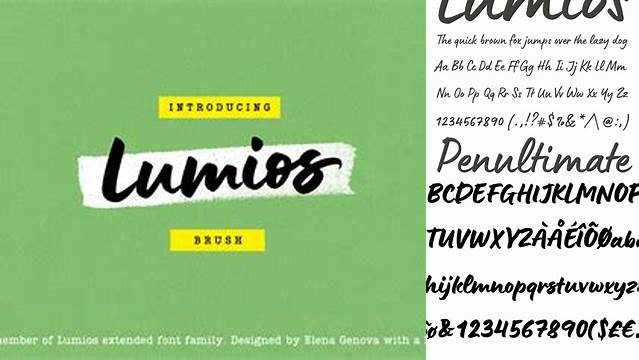
Lumios Brush Free Font: Your Creative Spark!
Hey guys! Ever stumbled upon a font that just clicks? That's how I felt when I first saw Lumios Brush Free Font. It's not just another font; it's a burst of creative energy waiting to be unleashed. Whether you're a seasoned designer or just starting out, this font is gonna be your new best friend. So, let’s dive deep into what makes Lumios Brush so special and how you can use it to make your projects pop! We're talking everything from its unique design to how it can elevate your brand. Get ready to be inspired!
1. What is Lumios Brush Free Font?
So, what exactly is Lumios Brush Free Font? Well, it's a stunning typeface that mimics the organic strokes of a brush. Think handwritten notes, but with a polished, professional edge. This font is all about bringing that human touch to your digital designs. It's got this fantastic fluidity and natural feel that makes it stand out from the crowd of rigid, blocky fonts. Seriously, it’s like your handwriting, but way cooler and more consistent. The Lumios Brush Free Font captures the essence of hand-lettering, making it perfect for projects that need a personal and authentic feel. Whether you're designing invitations, logos, or social media graphics, this font adds a touch of elegance and charm that's hard to resist. Plus, the fact that it's free? Total game-changer for budget-conscious creatives!
2. Key Features of Lumios Brush Font
Let’s talk features, because Lumios Brush Free Font is packed with goodies! One of the standout things is its natural, flowing strokes. It really looks like someone meticulously painted each letter. You get that authentic, handmade vibe without actually having to break out the brushes and ink. Beyond the basic character set, Lumios Brush Free Font often includes alternates and ligatures. What does that mean for you? More options! Alternates let you swap out certain letters for a slightly different look, adding even more variety to your designs. Ligatures, on the other hand, are those cool letter pairings that connect in a seamless, stylish way. These little details can make a huge difference in the overall aesthetic, giving your text a polished and professional finish. And let's not forget the versatility! This font isn't just a one-trick pony. It works beautifully in a wide range of projects, from branding to web design. It’s the kind of font that adapts to your vision, not the other way around.
3. Lumios Brush Font vs. Other Brush Fonts
Okay, so there are a ton of brush fonts out there, right? So, what makes Lumios Brush Free Font the standout choice? Well, for starters, it strikes a fantastic balance between elegance and playfulness. Some brush fonts can feel a bit too wild or messy, while others lean towards being overly formal. Lumios Brush Free Font hits that sweet spot, making it incredibly versatile. Compared to other fonts, Lumios often has a smoother, more refined stroke quality. This means it's less likely to look jagged or pixelated, especially when used in larger sizes. Plus, the overall design tends to be cleaner and more legible, which is a huge plus when you want your message to be clear. And let's be real, the fact that it's free is a major advantage! You get a high-quality, professional-looking font without having to shell out any cash. That’s a win-win in my book!
4. Best Uses for Lumios Brush Free Font
Where can you actually use Lumios Brush Free Font? Oh, the possibilities are endless! Seriously, this font is a chameleon. Think about logos and branding. Lumios Brush Free Font adds a touch of personality and uniqueness that can make a brand really stand out. It's perfect for businesses that want to project a friendly, approachable image. Then there's the world of invitations and stationery. Imagine wedding invites with elegant, handwritten-style calligraphy – that’s the magic of Lumios Brush Free Font. It's also fantastic for creating eye-catching social media graphics. A quote overlaid on a beautiful image? Chef’s kiss. And don’t forget website headers! A well-placed headline in Lumios Brush Free Font can add a touch of sophistication and draw visitors in. Whether you're designing for print or digital, Lumios Brush Free Font is a reliable choice that brings a touch of artistry to any project.